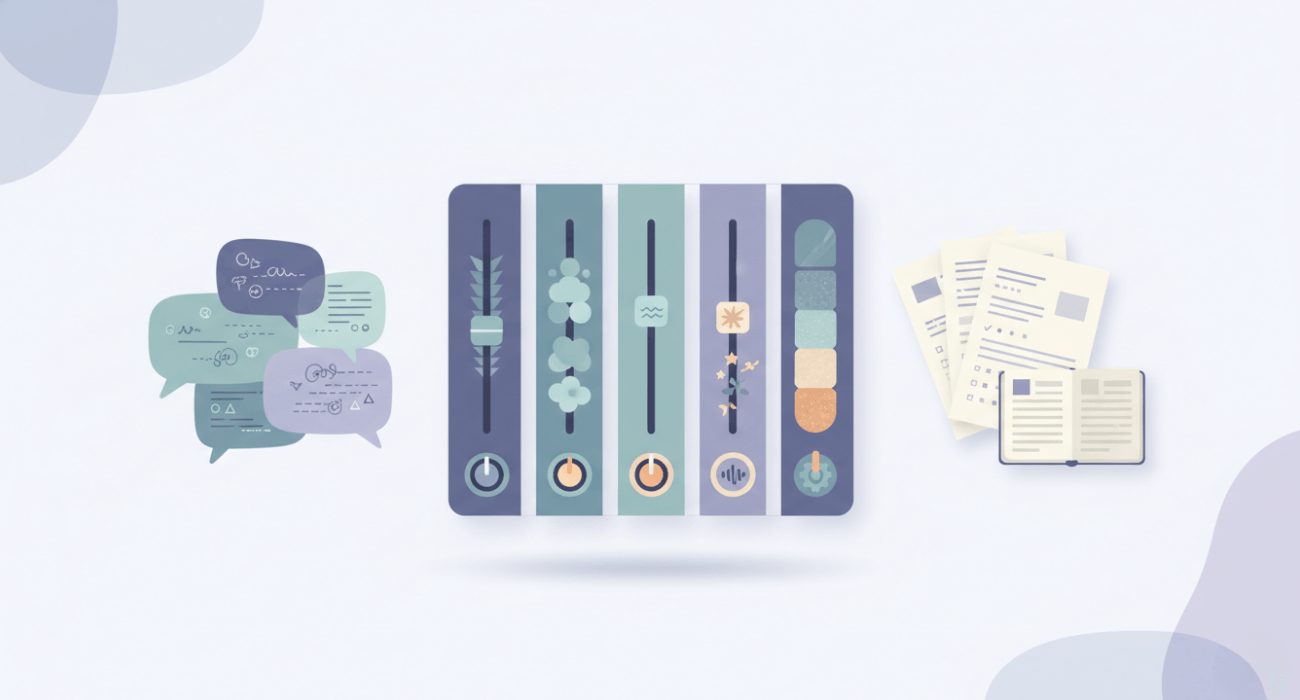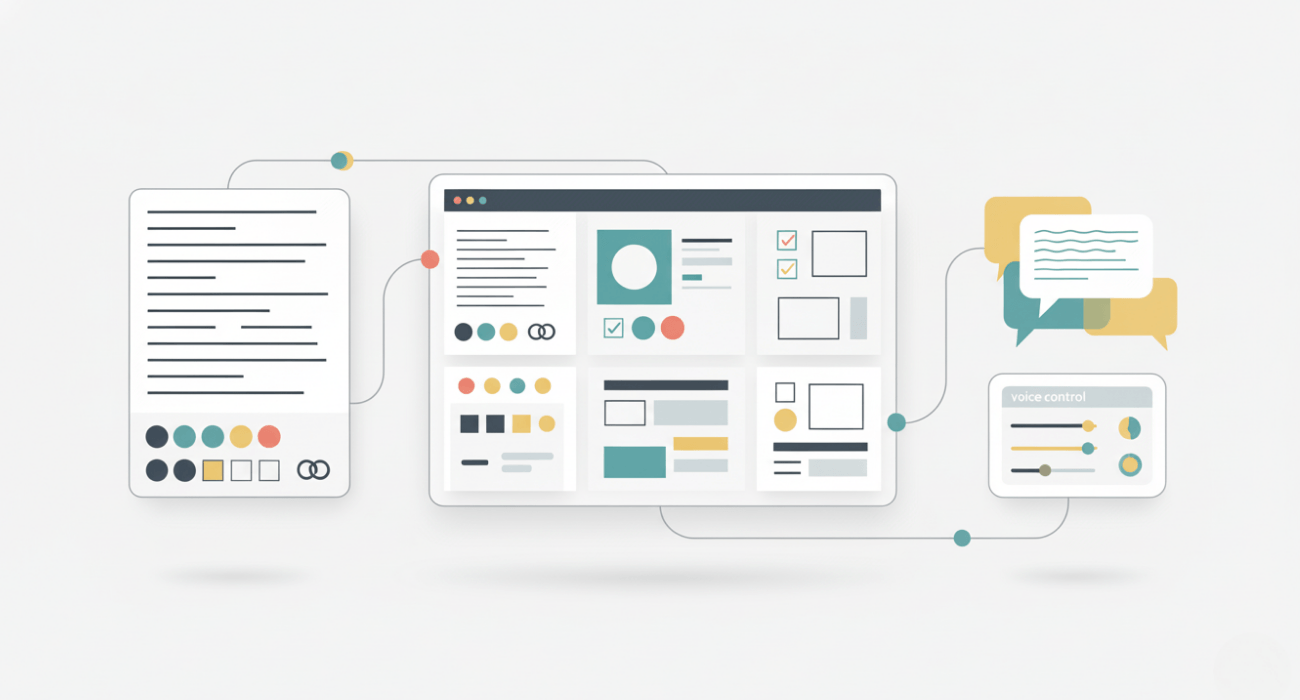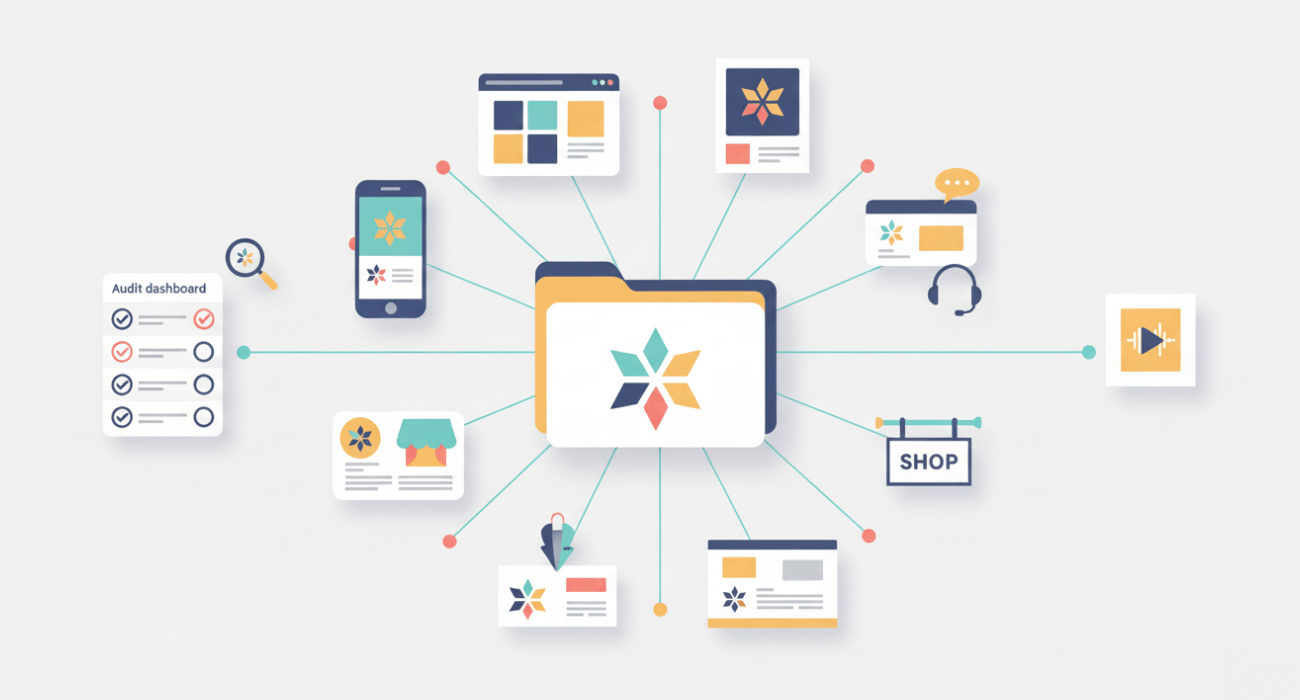
Have you ever seen a social media post and known exactly which company posted it, even before you saw the name? Maybe it was the specific shade of green, the clean, simple photos, or the funny, casual caption.
Or maybe you've seen a specific, looping script font and immediately thought of Coca-Cola.
That is the magic of a strong, consistent brand identity.
Most people hear "brand" and think of a logo. But your logo is just one small piece of the puzzle. Your brand identity is the complete "personality" of your business. It is the total package: the look, the feel, the sound, and the voice. It's the promise you make to your customers.
But what good is a personality if it changes every day? That's where consistency comes in.
Brand consistency is the secret sauce. It is the practice of applying your brand's personality to everything you do, whether on your official channels or on third-party UGC platforms. Every social media post. Every email. Every product package. Every customer service call. When you are consistent, you are reliable.
Why bother with all this work? It's simple.
- It builds recognition. Customers will see your content and know it's you, instantly.
- It establishes trust. People trust what they know. A consistent brand feels professional, stable, and dependable.
- It creates loyalty. When customers feel connected to your familiar personality, they become more than just buyers. They become fans.
This guide will give you a clear, five-step process to build that identity from the ground up. We will cover everything from the visual "font" to the verbal "voice" and lock it all in.
You cannot pick an outfit for a friend if you do not know their personality. The same goes for your brand. Before you pick a single color or write one line of ad copy, you have to know who you are.
Step 1: The Foundation - Define Your Brand's "Soul"
You cannot pick an outfit for a friend if you do not know their personality. The same goes for your brand. Before you pick a single color or write one line of ad copy, you have to know who you are.
This first step is all about your brand's "soul."
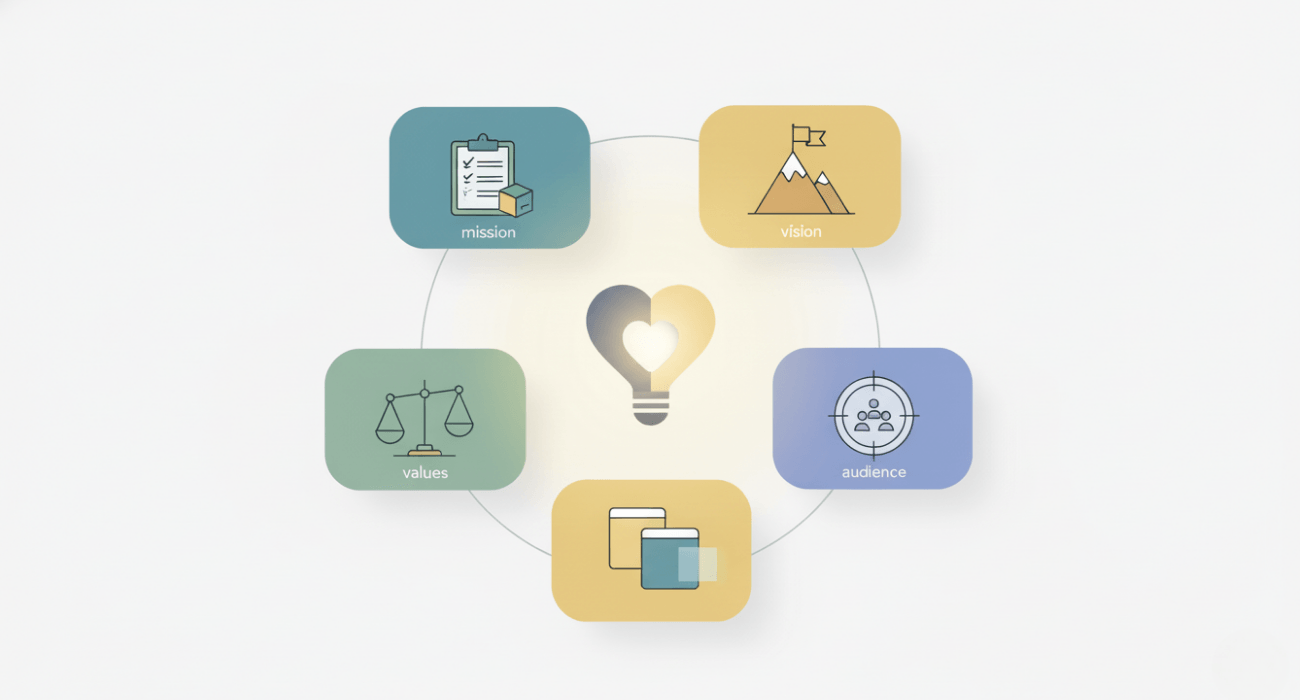
Your "Why": Mission, Vision, and Values
This is the core of your brand. You need to write these down and make them clear.
- Your Mission: What do you do right now? Be simple and direct. "We sell high-quality, sustainable coffee beans." "We provide fast, friendly plumbing services." This is your "what."
- Your Vision: What is your big future goal? This is your "why." It's your dream. "To be the leading voice in sustainable coffee." "To be the most trusted home service provider in our city."
- Your Values: What principles guide your actions, no matter what? These are your non-negotiables. Think of 3-5 words. "Quality." "Community." "Honesty." "Sustainability." "Fun." These values will become your compass for every other decision.
Your Audience & Positioning
You cannot be everything to everyone. If you try, you will end up being nothing to no one. You must be specific.
- Your Audience: Who are you talking to? You need to know them. Try to picture your perfect customer. What do they do? What problems do they have? What do they love? What do they value? This is your "customer persona." You might have one or two. Give them a name. This is who you will be talking to in all your marketing.
- Your Positioning: Now, look at your competitors. What makes you different? This is your Unique Value Proposition (UVP). Why should a customer choose you over the other guy? Write that answer in a single, clear sentence. "We are the only plumbing service that offers a 24/7 flat-rate fee." "We are the only coffee shop that roasts its beans in-store." This is your hook.
Step 2: The "Font" - Building Your Visual Identity
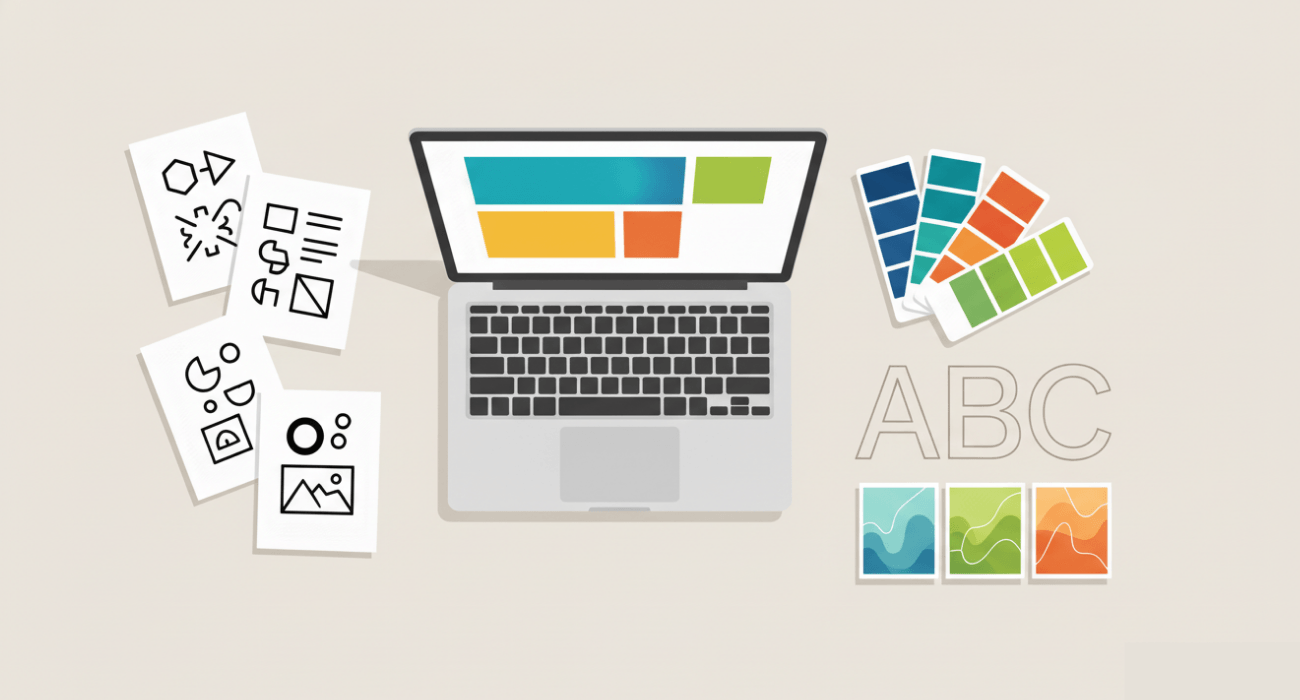
This is the part everyone loves. This is the first impression. It's what your customers will see and feel when they find you. It is the physical look of your brand, and it must be based on the "soul" you just defined in Step 1.
Your Logo & Color Palette
- Your Logo: This is your brand's signature. It is not your whole brand, but it is a powerful symbol. It could be a wordmark (like Google or Netflix), an icon (like Apple or Target), or a combination. The most important rule? It must be scalable. It has to look great as a tiny app icon on a phone and as a huge sign on a billboard. It should be simple, memorable, and timeless.
- Your Color Palette: Colors are emotional. They send subconscious messages. Blue often feels trustworthy and calm. Red is about energy and excitement. Green makes you think of nature, health, or wealth.
Do not just pick your favorite colors. Pick the colors that feel right for your brand's values and personality.
A simple palette is best. Choose:
- 1-2 Primary Colors: These are your main brand colors.
- 2-3 Secondary Colors: These support your primary colors. They are often used for backgrounds or less important text.
Conclusion
Building a strong brand is not a one-day project. It is a process.
It starts with your "soul", your "why" and your values. It builds the "look", your font, your colors, and your images. And it defines the "sound", your unique brand voice.
A strong, memorable, and trusted brand does not happen by accident. It is the result of deliberate, smart choices. Your style guide is your map, and practicing consistency every single day is how you follow it.
This is how you build real trust. This is how you turn casual customers into loyal, lifelong fans.